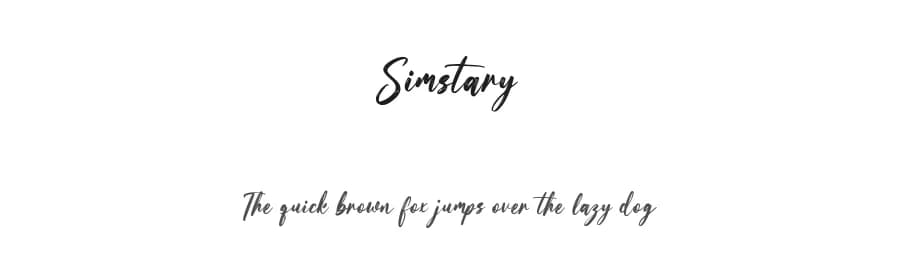
About Simstary Font
Simstary Font is a script font that shines as a display or heading face. Pair it with a clean sans-serif or serif font for body text β the contrast creates a clear hierarchy while the two styles stay balanced and easy to read.
Simstary Font